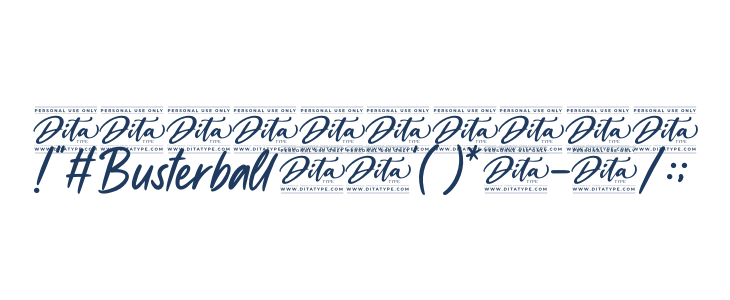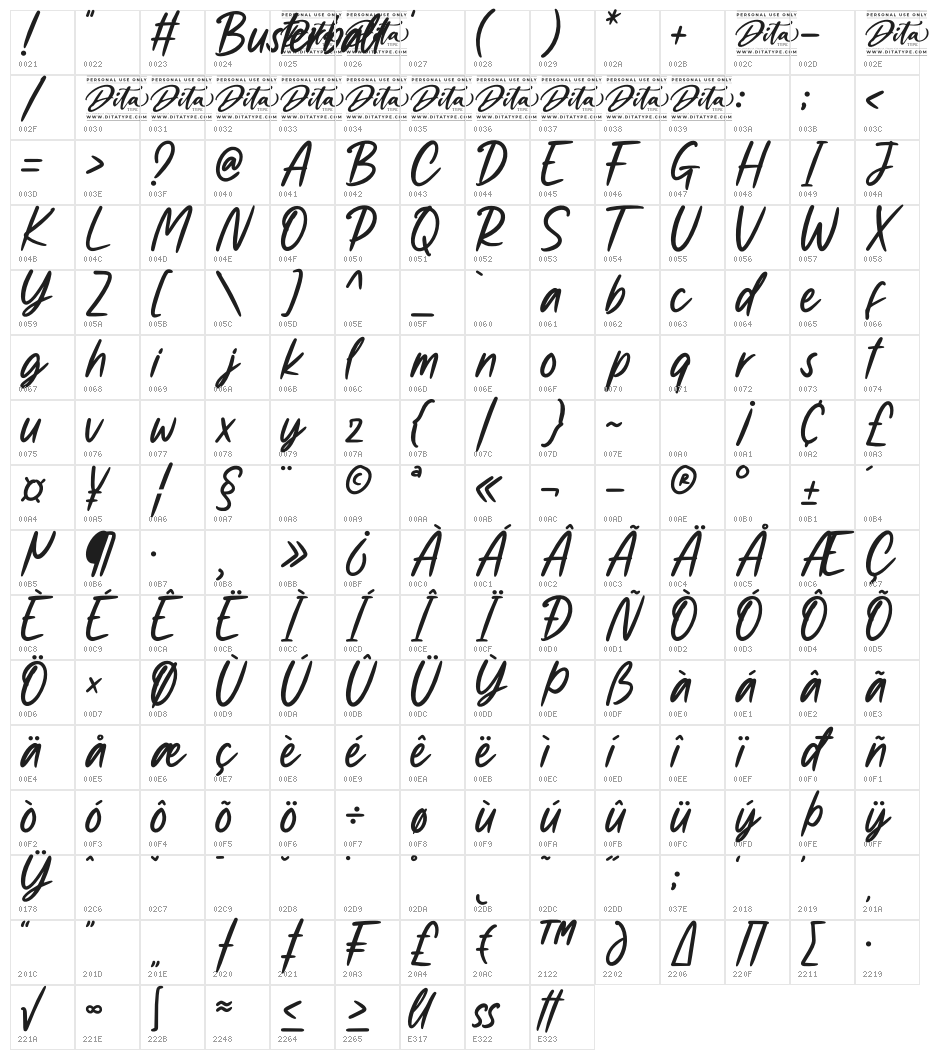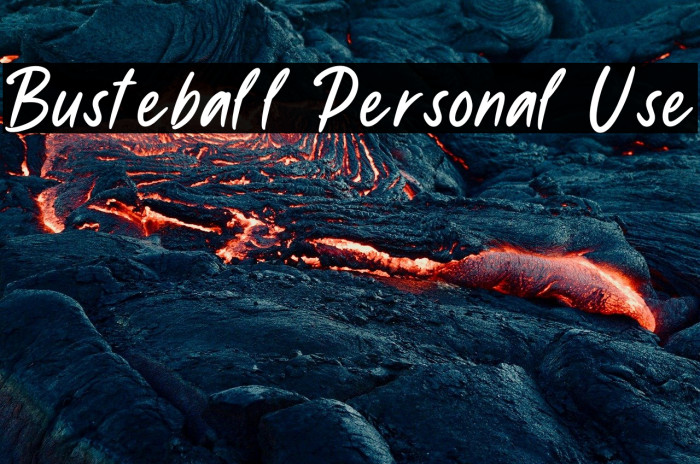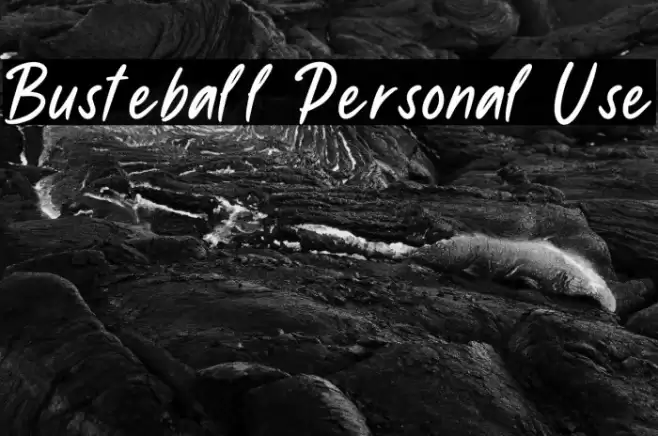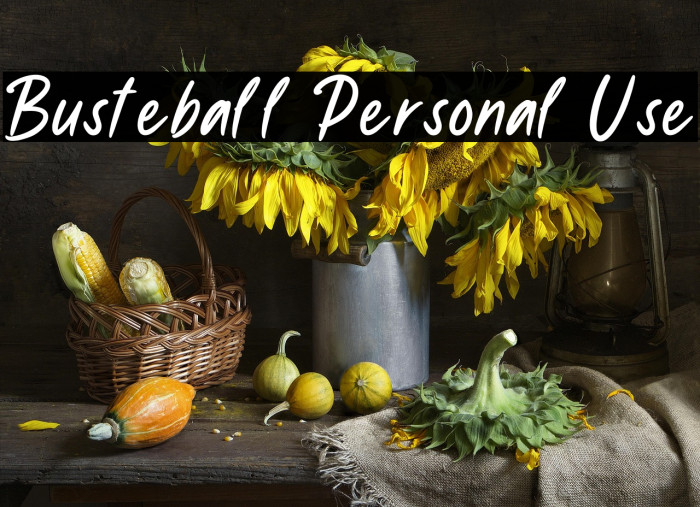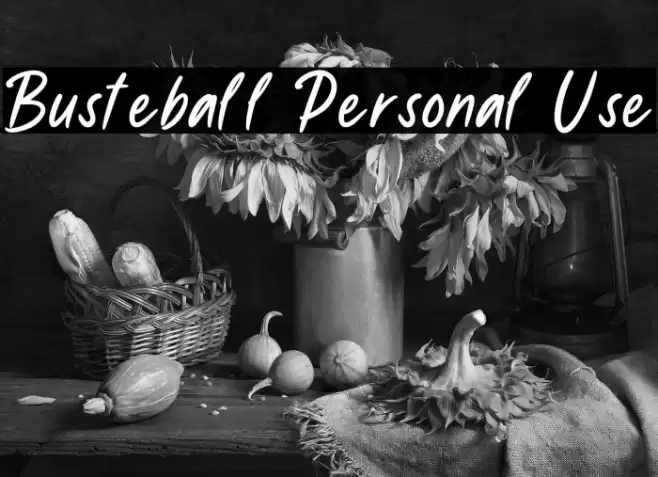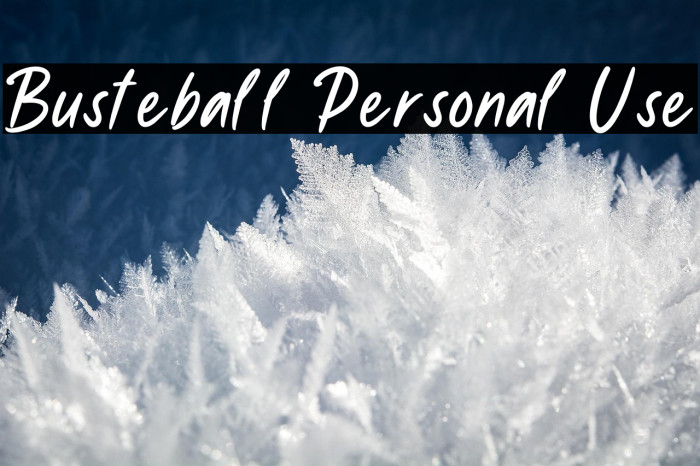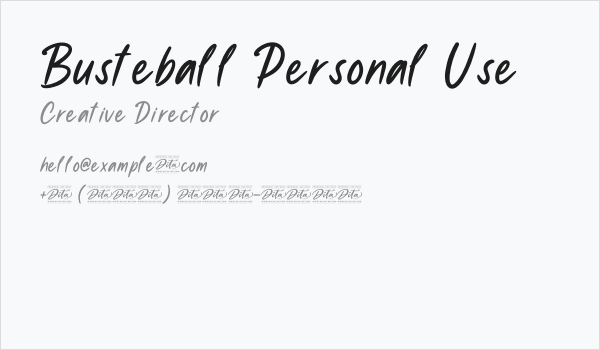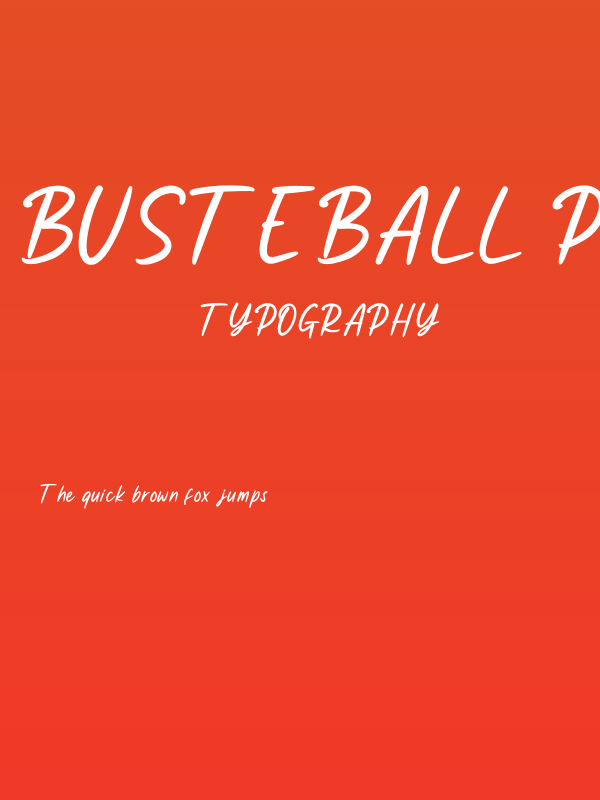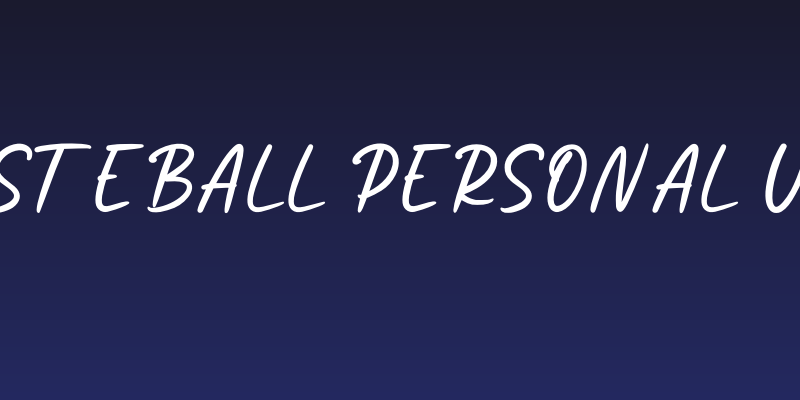
Busteball Personal Use Font
Busteball Personal Use Description
This font features a dynamic and fluid script style, characterized by its smooth, flowing lines and slightly slanted orientation. The uppercase letters are bold and expressive, while the lowercase letters maintain a consistent rhythm and elegance. The font exudes a sense of movement and energy, making it ideal for projects that require a personal and artistic touch. Its handwritten appearance is both casual and sophisticated, suitable for a variety of creative applications.